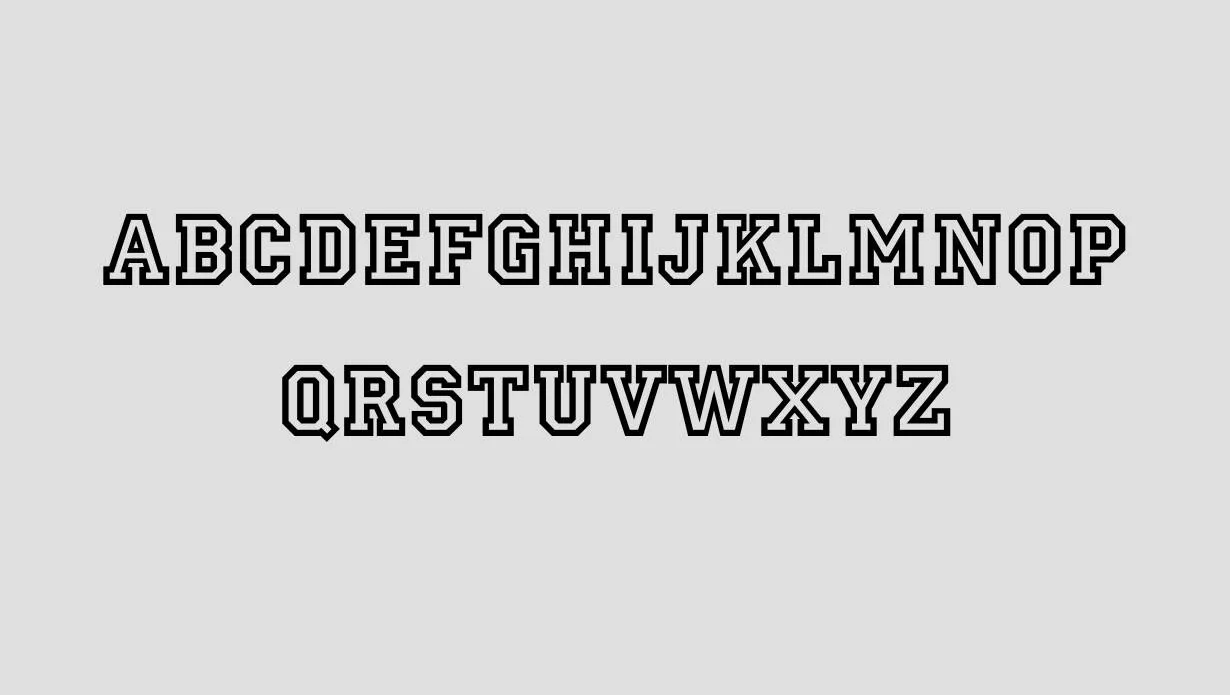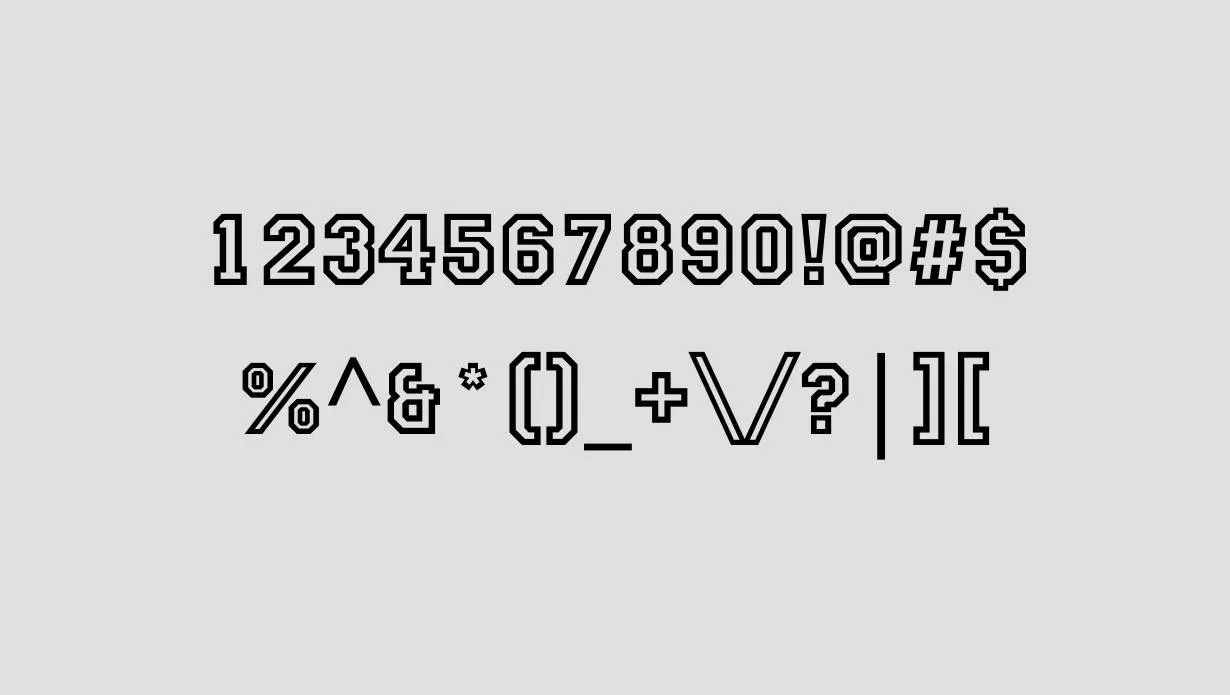
Allstar Font is a versatile and legible typeface suitable for various design applications. Transform your design project into a captivating masterpiece by including this typeface.
You can use the cinga font independently or harmoniously pair it with other fonts. Its simplicity and clarity make it a practical choice for branding, advertising, web design, and packaging. Allstar Font offers a modern and organized aesthetic to your design projects.